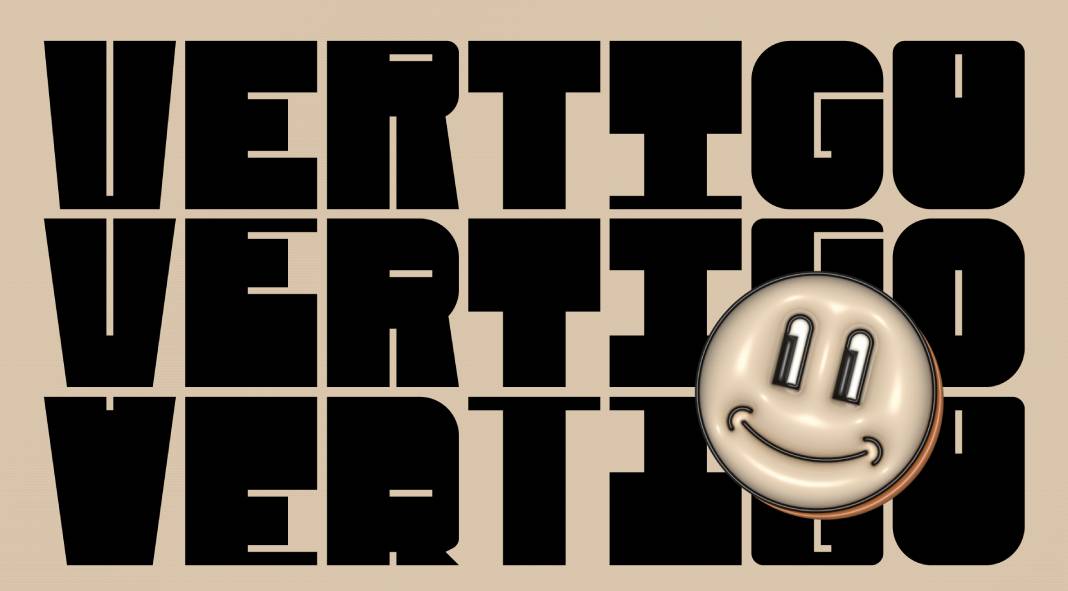
Take a look at Vertigo, a free font by Andrea Del Prete.
Andrea Del Prete created Vertigo with a classic charm. It is an all-caps sans-serif typeface boasting three distinct midline heights for each symbol. It’s free to download under the free commercial use license – all Andrea asks in exchange is that you share your projects featuring this font with him! Have fun experimenting and creating unique combinations of text; enjoy Vertigo!